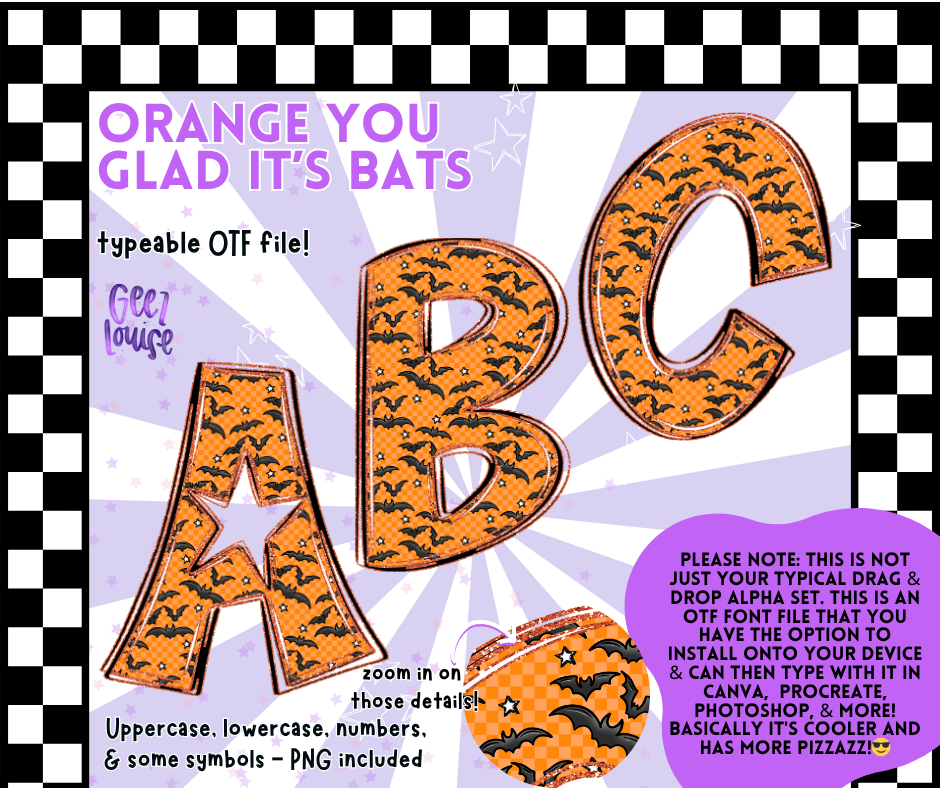
Orange You Glad It’s Bats – Halloween OTF Font with PNGs (Uppercase + Lowercase)
Say hello to spooky sass with Orange You Glad It’s Bats—a Halloween-inspired alpha that’s bold, batty, and ready to haunt your projects.
🎃 Bright orange checkered background
🦇 Covered in tiny black bats
🔠 Includes uppercase, lowercase, numbers, & some symbols
It’s a typeable OTF font, not just a drag-and-drop set—aka more freedom, more flair, and way more spooky fun.